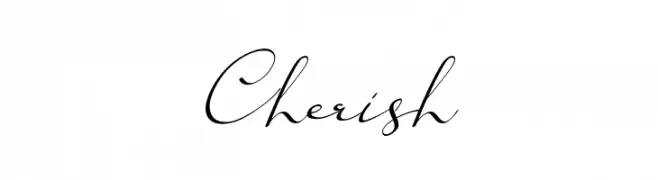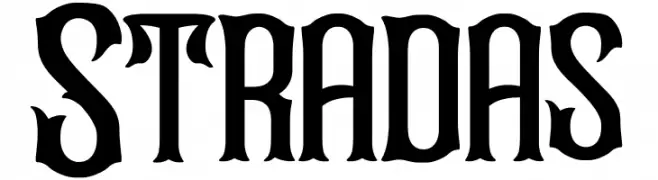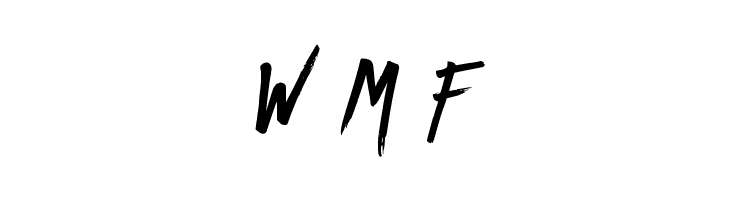
A bold, Gothic-inspired font with sharp serifs and high contrast.
A bold, dynamic font with tall, slightly condensed characters and a strong presence.
Extra-condensed, extra-light sans-serif font.
A bold, brush script font with a hand-painted, dynamic style.
A sleek, modern italic font with smooth, continuous strokes.
A bold, playful font with thick, rounded strokes and a whimsical style.
A graceful script font with flowing, connected strokes and elegant curves.
An elegant and flowing script font with interconnected letters and graceful curves.
A bold, playful font with rounded edges and a slightly condensed form.
A bold, condensed font with a modern, geometric style.